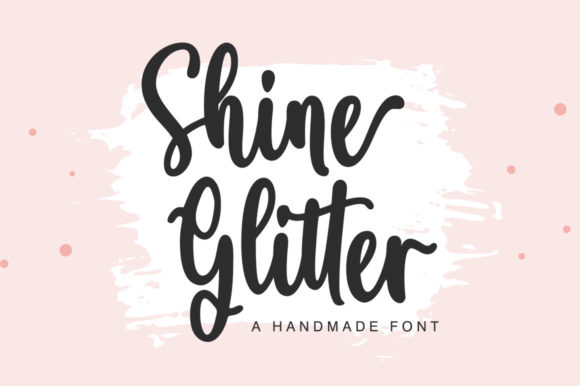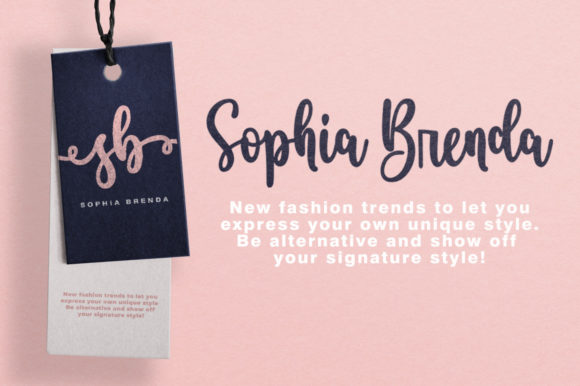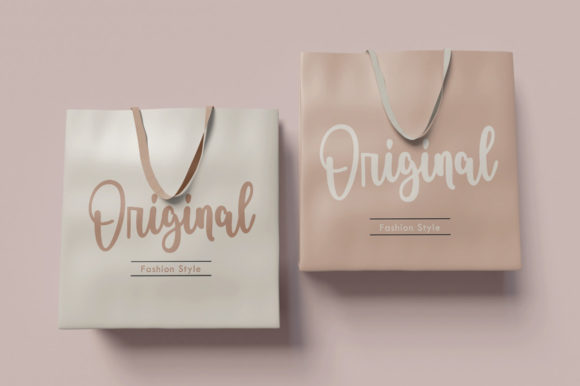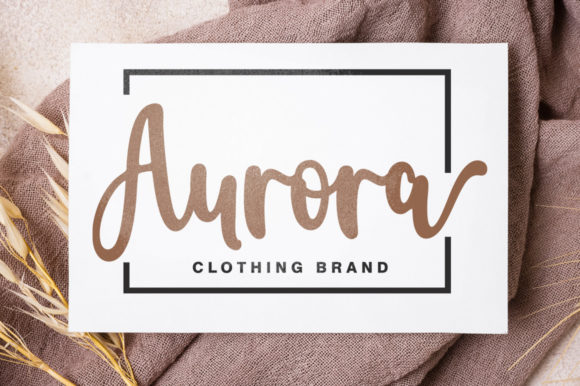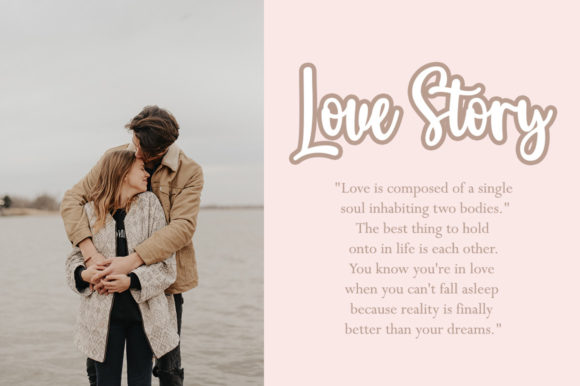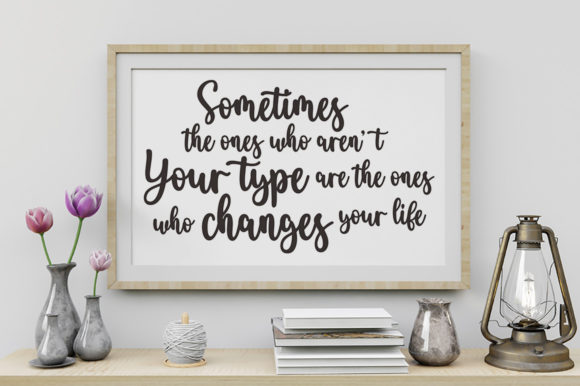
Shine Glitter Font
Shine Glitter is a whimsical script font with a relaxed theme, featuring a lovely style. No matter the topic, this font will be an incredible asset to your fonts’ library, as it has the potential to elevate any creation.